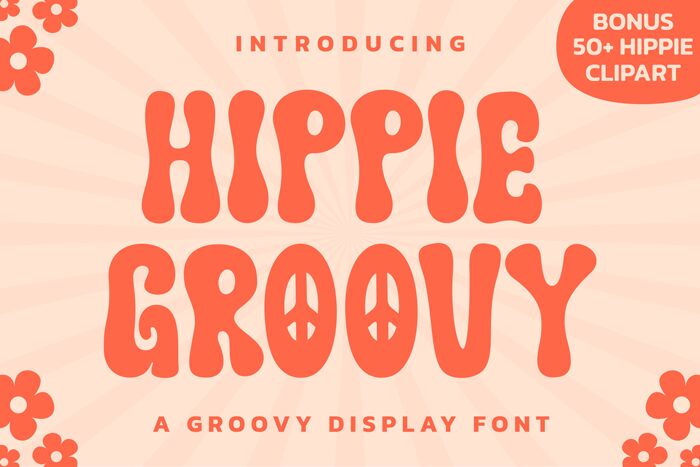
Say hello to HIPPIE GROOVY, the bold and groovy display font designed by Hoperative. With its condensed width, this font is perfect for creating eye-catching headlines and titles that demand attention. Its retro-inspired style brings a fun and playful vibe to any project, making it suitable for a wide range of designs such as music album covers, event posters, or even vintage-themed websites. Whether you're looking to add some pizzazz to your brand or simply want to make a statement with your design work, HIPPIE GROOVY is the perfect typeface for you!